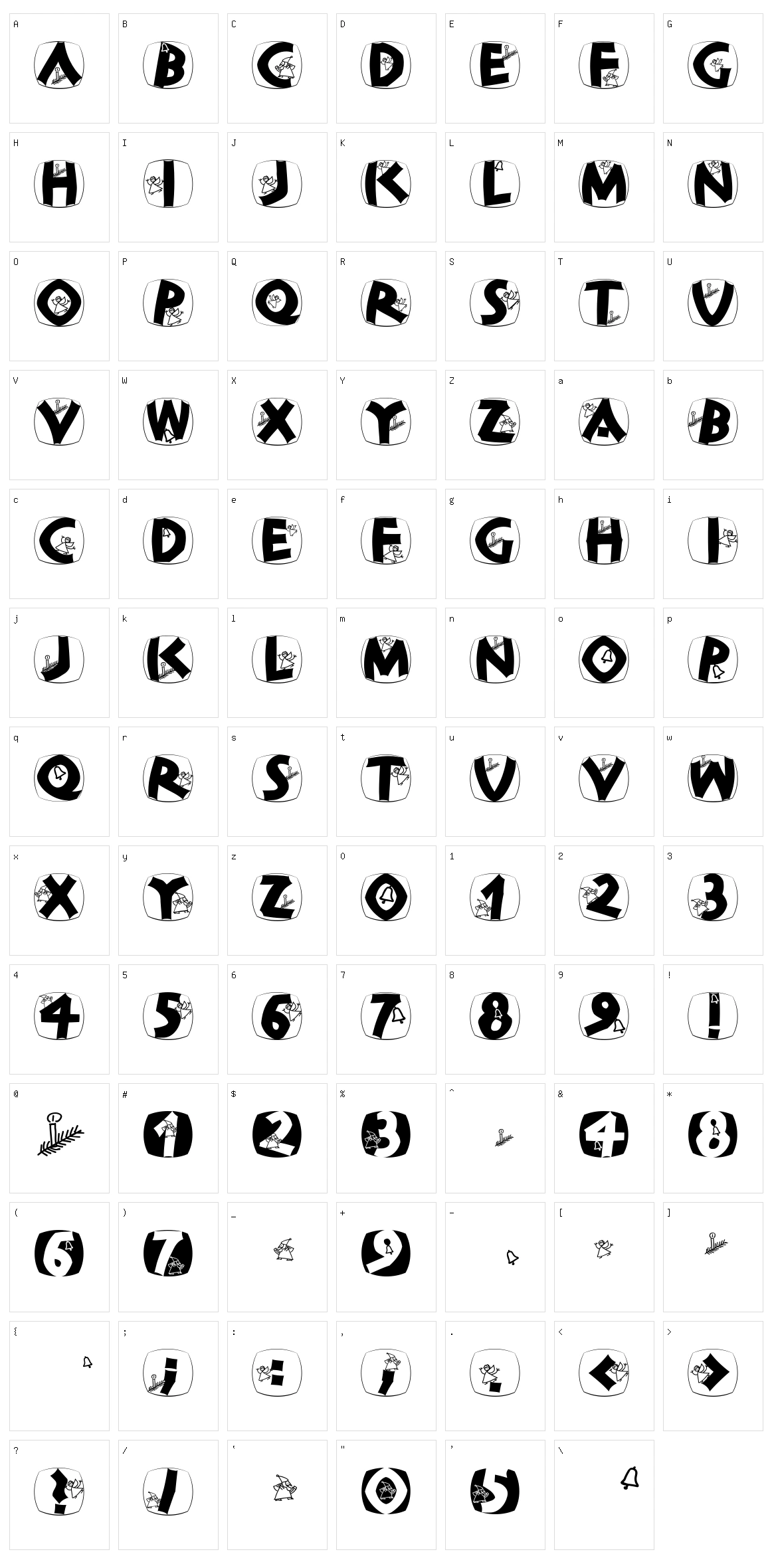
ClassiCaps Xmas
Mit dem Xmas-Font können Sie Geschenkpapier bedrucken , Grußkarten
beschriften, CD-Covers gestalten - einzelne Buchstaben benutzen,
aber auch ganze Weihnachtslogos zusammenbauen. Und weil der Font
Use this font for printing on gift paper or greeting cards and
for designing CD covers. Use single characters or create